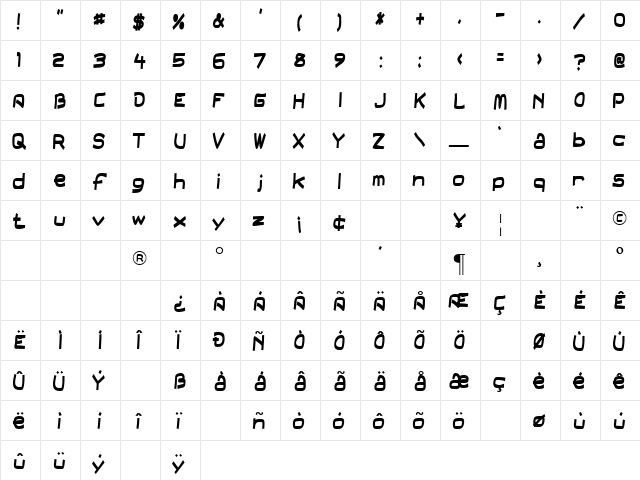
Field Day Filter Regular
Design Context for Field Day Filter Typeface
Field Day Filter is a composed and adaptable typeface that performs quietly and consistently across a wide range of design contexts.